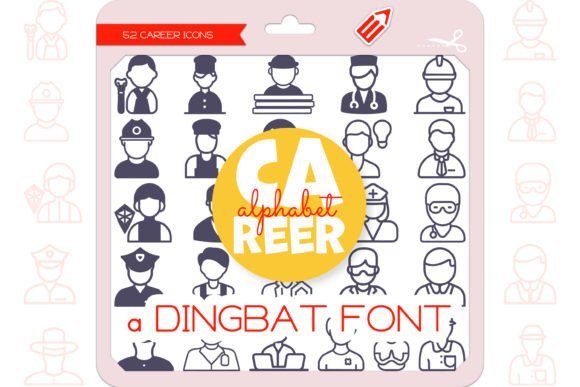
Introduction to Career Alphabet Font
Career Alphabet is a unique and cute dingbat font, each Career icon representing each letter of the alphabet from A to Z.
It contains 52 icons in 2 styles (Outline & Filled-Outline) Add this font to your creative ideas and make your arts outstanding.